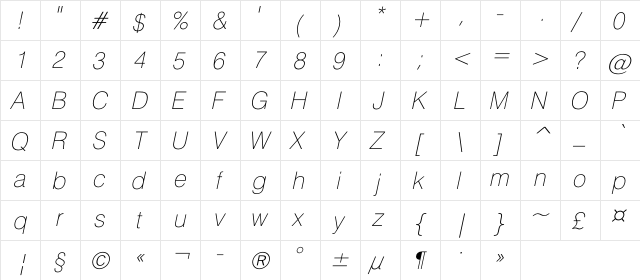
HeliosThinC Italic
Design Context for HeliosThinC Typeface
HeliosThinC is a composed and adaptable typeface that performs quietly and consistently across a wide range of design contexts. The dynamic lean of this cut emphasises speed and emphasis in any layout. The delicate stroke weight brings airiness and refinement to layouts.
Pro Tip: Try HeliosThinC for annotation and caption copy alongside an upright companion — the contrast in angle creates a dynamic but ordered typographic system.